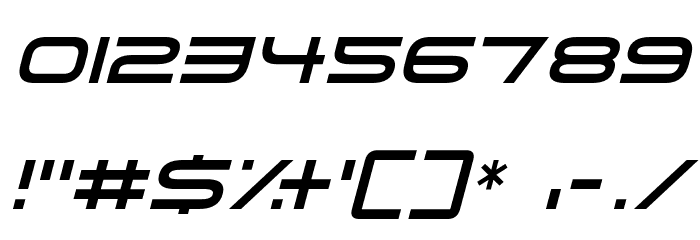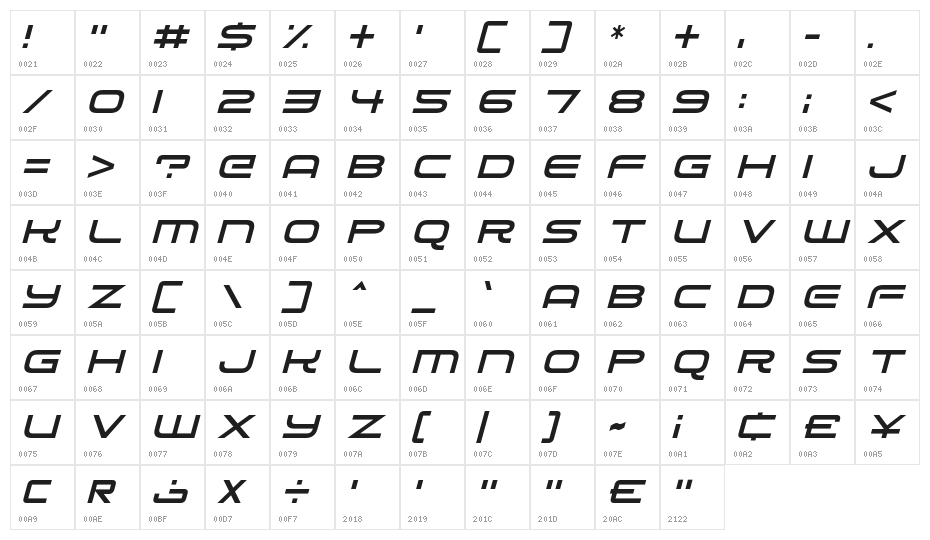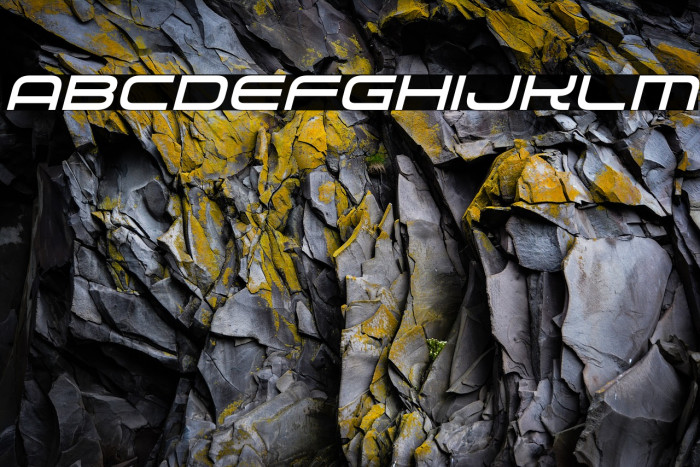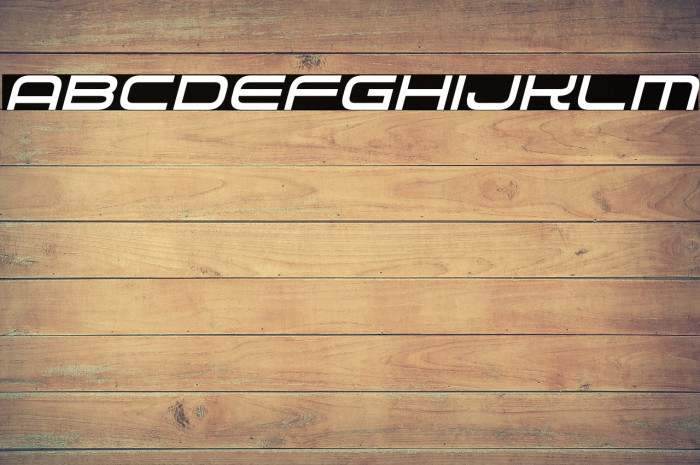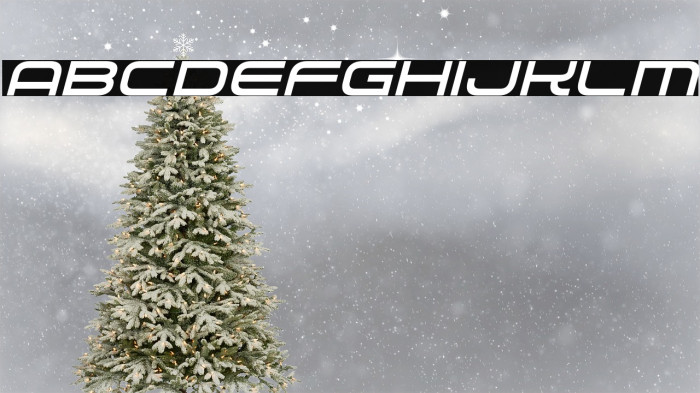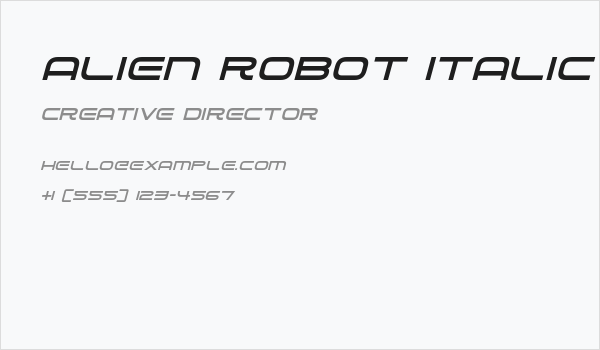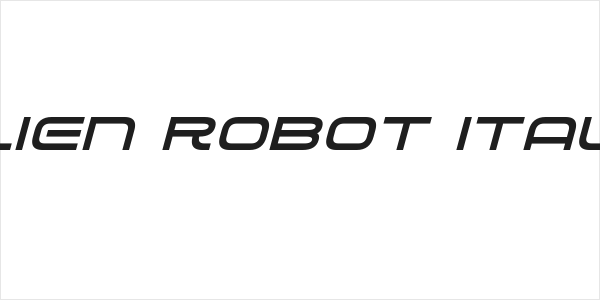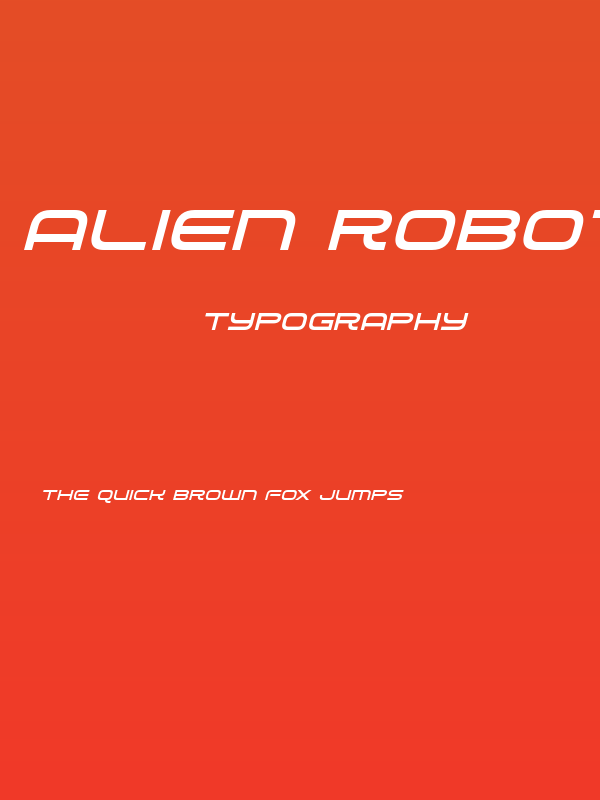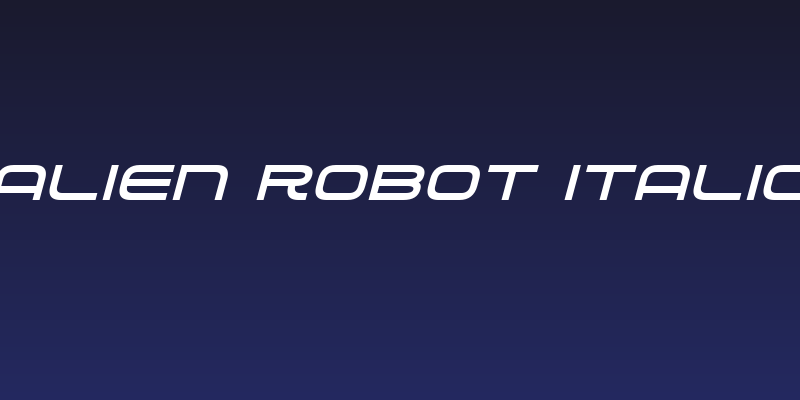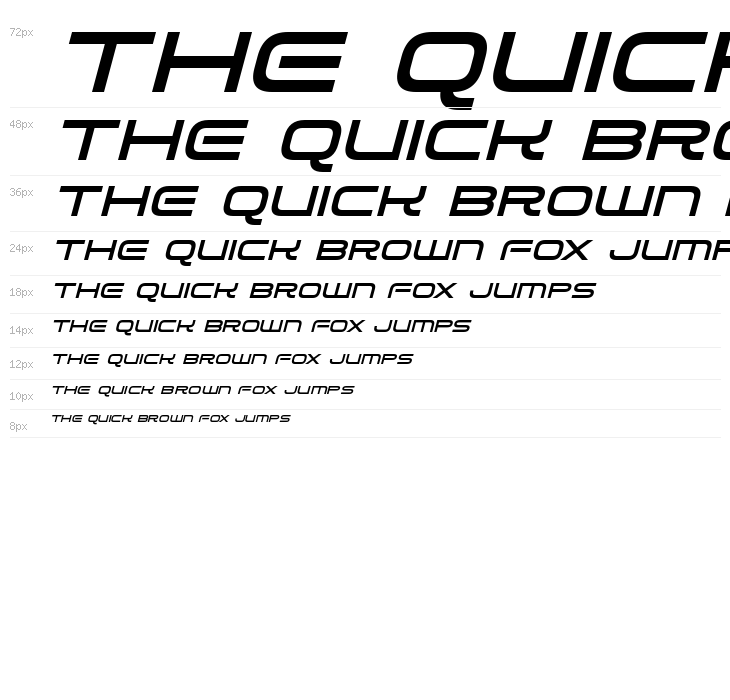
Alien Robot Italic Font
Alien Robot Italic Description
This font features a futuristic and sleek design, characterized by its italicized and slightly condensed letterforms. The characters exhibit a modern, tech-inspired aesthetic with smooth curves and sharp angles, giving it a robotic and alien-like appearance. The uppercase and lowercase letters maintain a consistent style, with a uniform stroke width that enhances readability. The numerals and special characters are designed to match the overall theme, providing a cohesive look across all glyphs. This font's unique style makes it suitable for projects that require a contemporary and innovative touch.